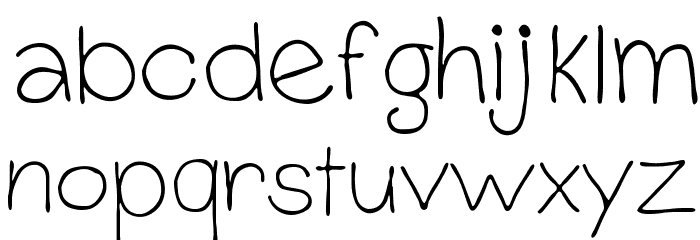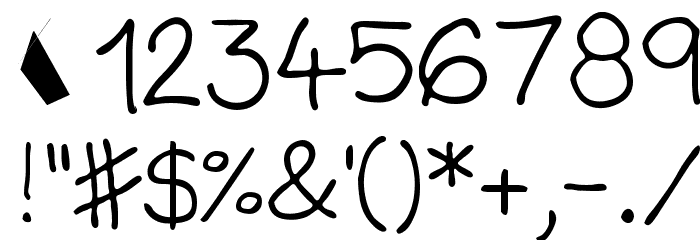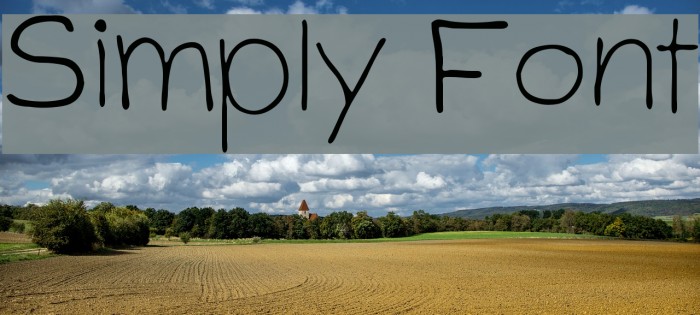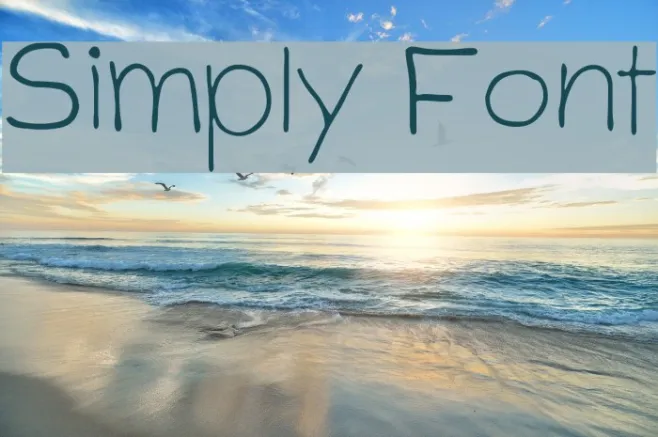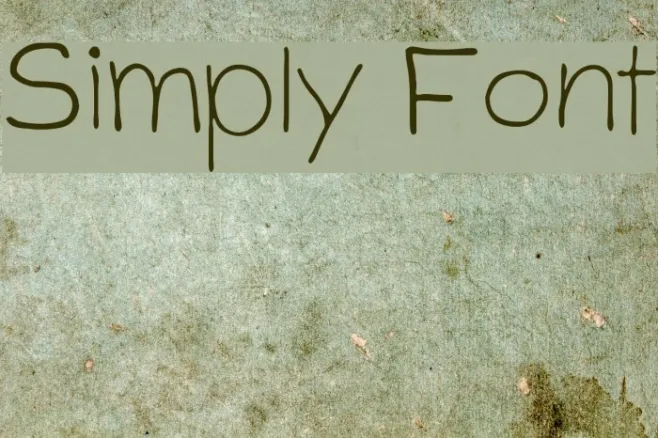
Simply Font Font
This font features a playful and casual handwritten style, characterized by its uneven strokes and slightly irregular letterforms. The uppercase and lowercase letters maintain a consistent flow, giving it an approachable and friendly appearance. The numerals and special characters are crafted with the same whimsical touch, making them suitable for informal and creative projects. The overall design is simple yet expressive, with a touch of spontaneity that adds personality to any text.
- Proposed Projects: Ideal for greeting cards, children's books, casual invitations, and creative branding projects.
- Overall Style: Casual
- Use Case: Headlines, Informal text, Creative projects